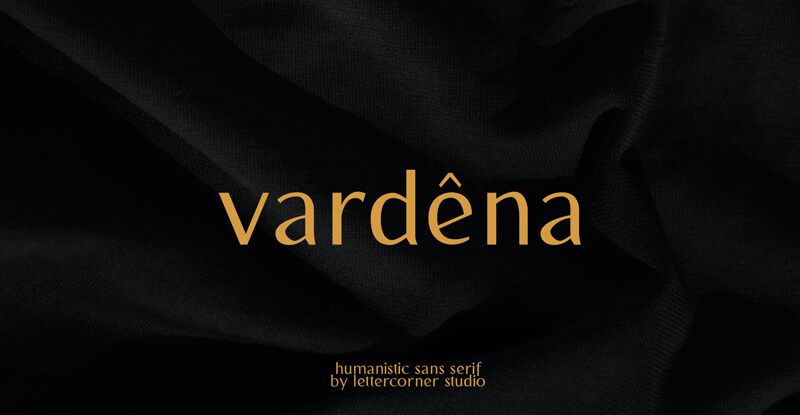
Vardena font designed by Mocha Frappuccino is a free sans serif font for personal use. Its exquisite character is achieved by a subtle humanistic touch to its base form inspired by the geometric sans serif fonts. Vardena is definitely a minimalist and modern font with maximum elegance and sophistication put into every letter. It is approachable and pleasant font which makes it perfect for various modern project types.
The font’s variety of uses have no limits. Incorporate it in web design, user experience design, with UI kits, and apps. Create banner designs, ads, magazine and newspaper cover layouts, or digital publication projects. Other uses include packaging, branding, typography, signage, and other industrial design applications.